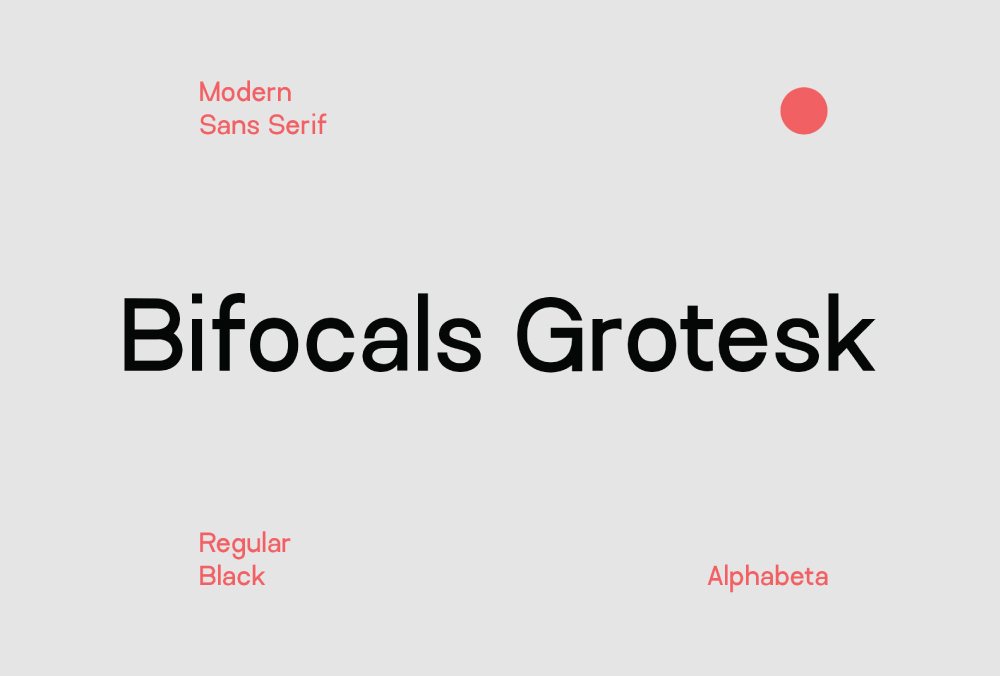
Bifocals Grotesk is a new 4 font family made with a geometric and modern concept by habib otang Having 2 weights along with italics makes Bifocals Grotesk extremely useful when you need a easy to read workhorse sans serif.